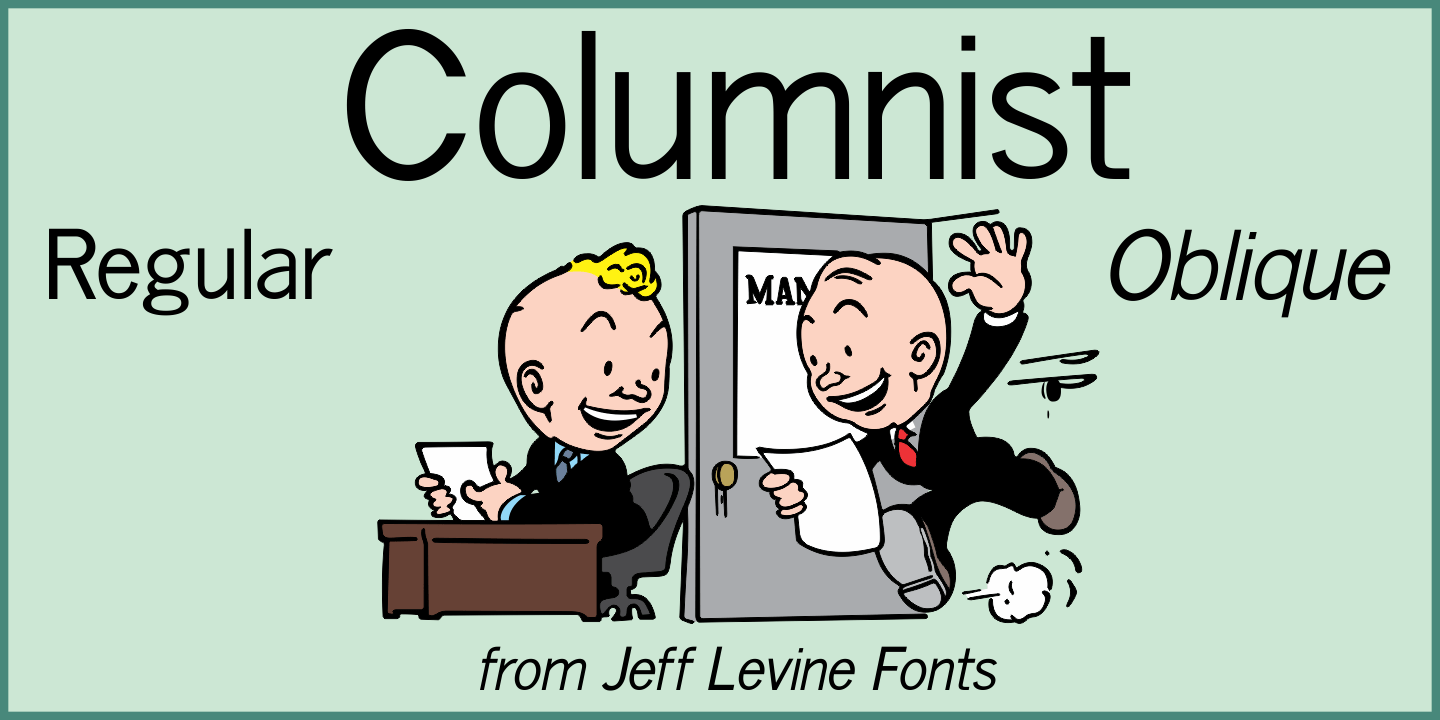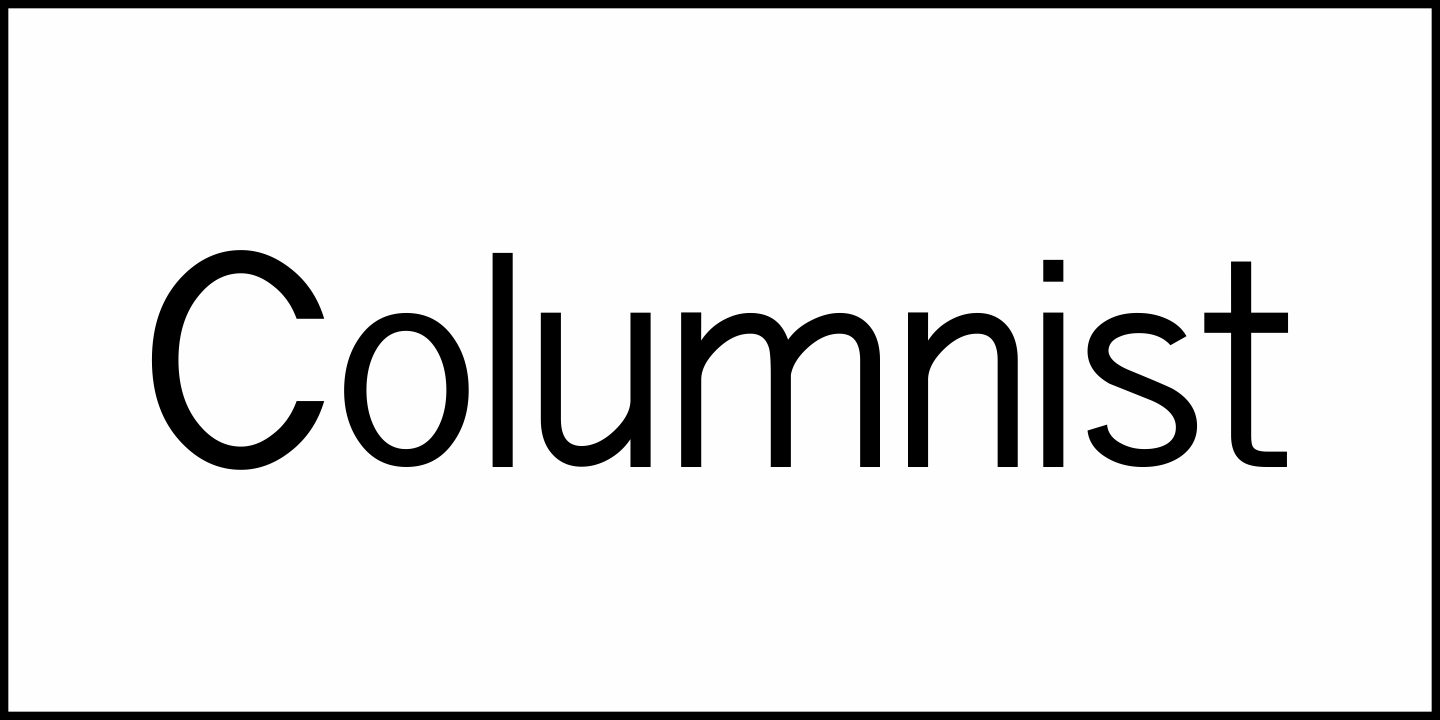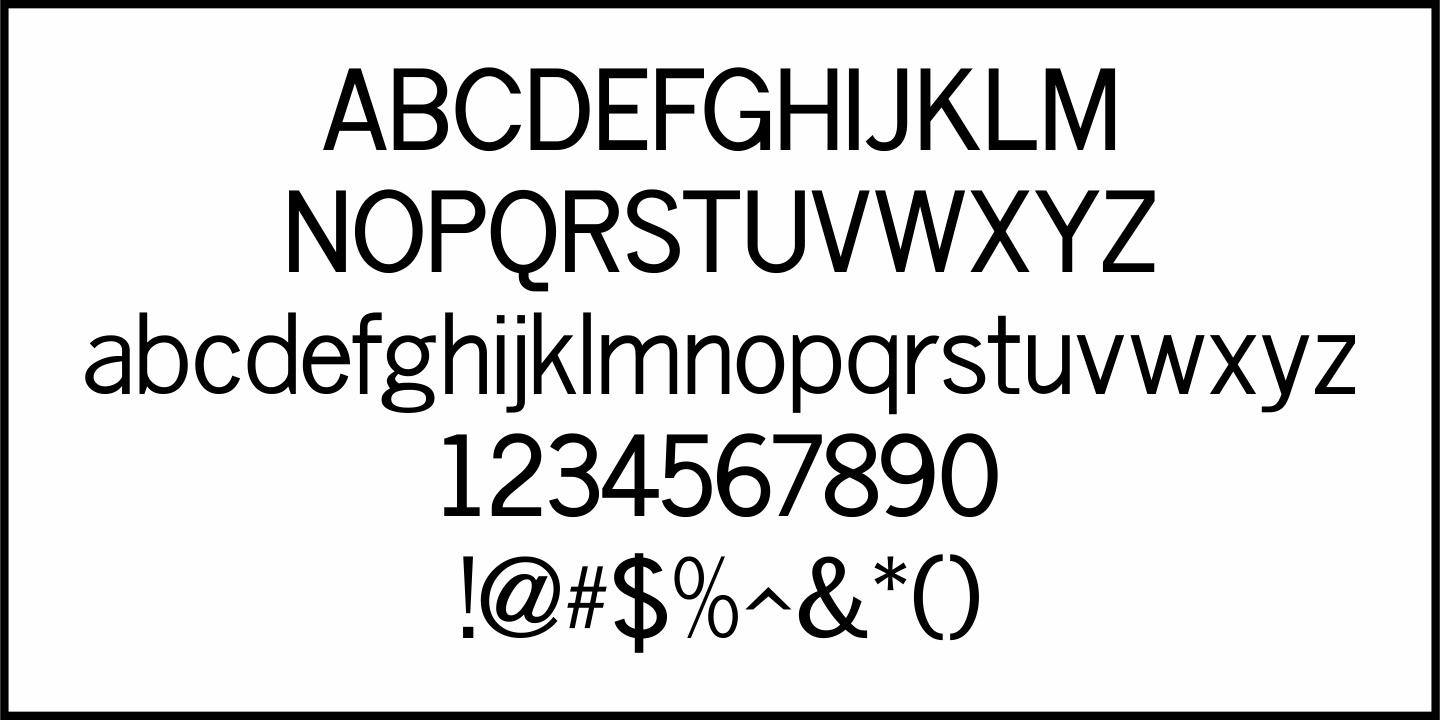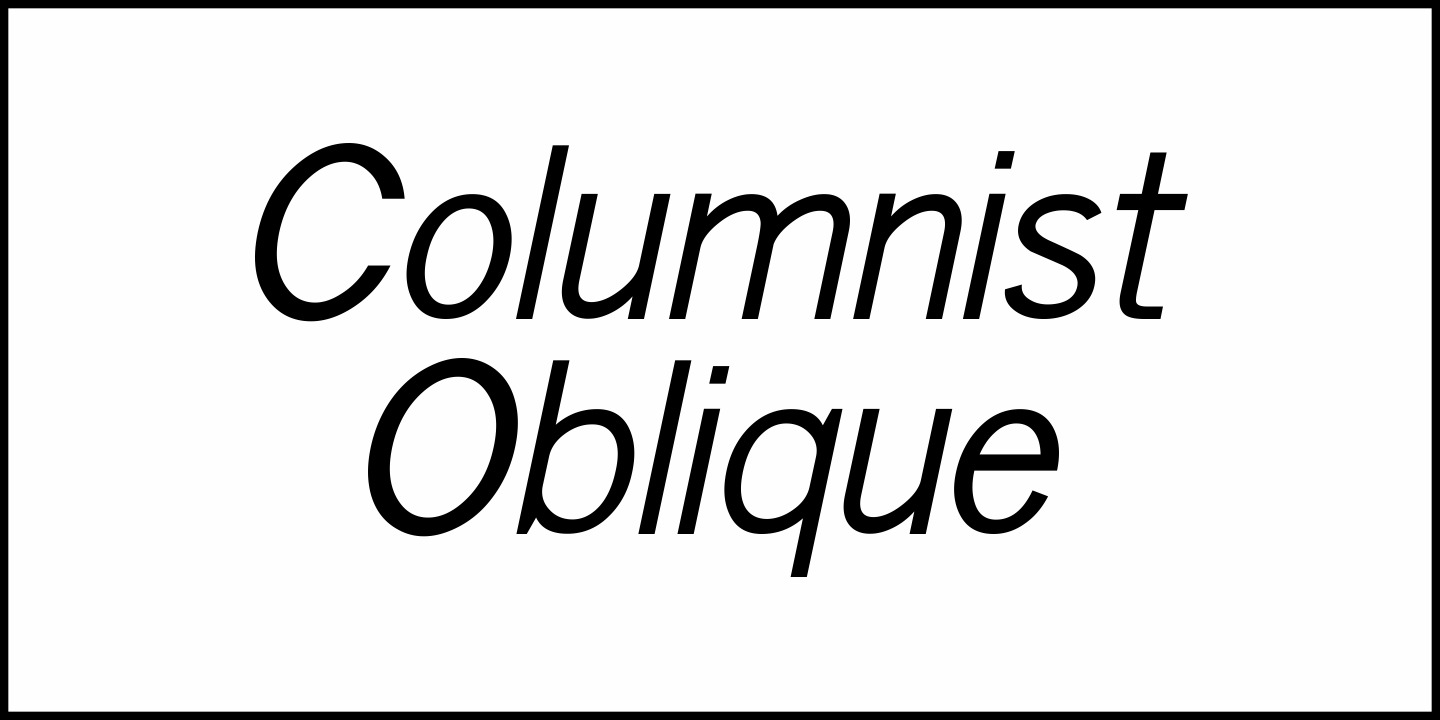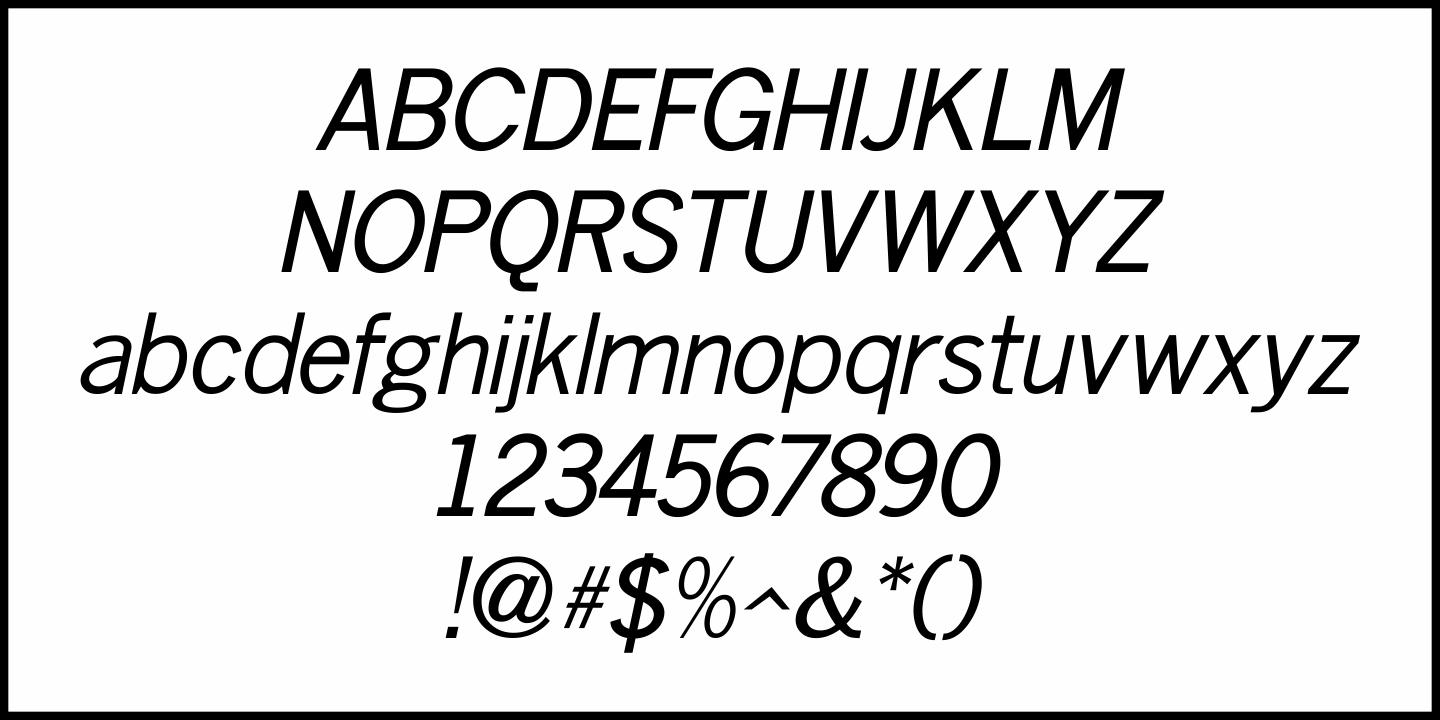
Columnist
“News Gothic” has been a reliable workhorse of a font since it was created by Morris Fuller Benton and first offered for sale in 1908 by American Type Founders.
A clean, legible design used for text copy, it can also double as a light headline face.
This reinterpretation (named Columnist JNL) is available in both regular and oblique versions.